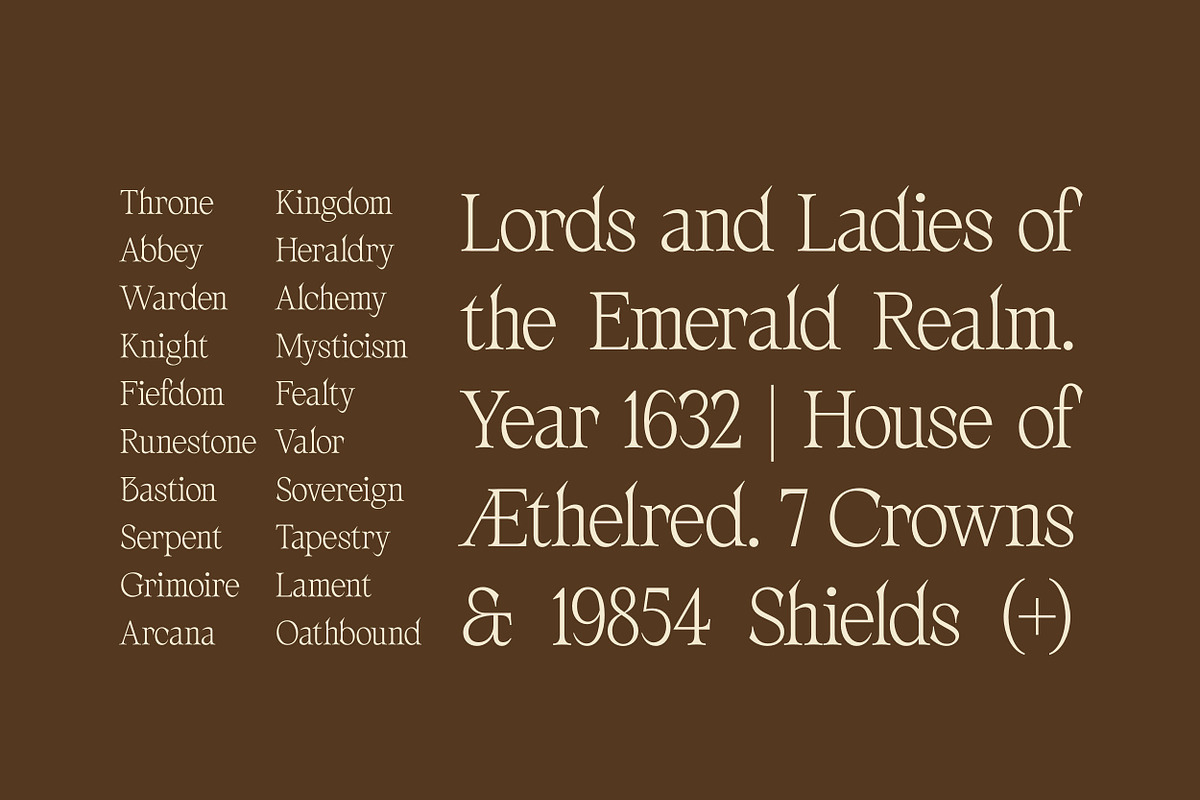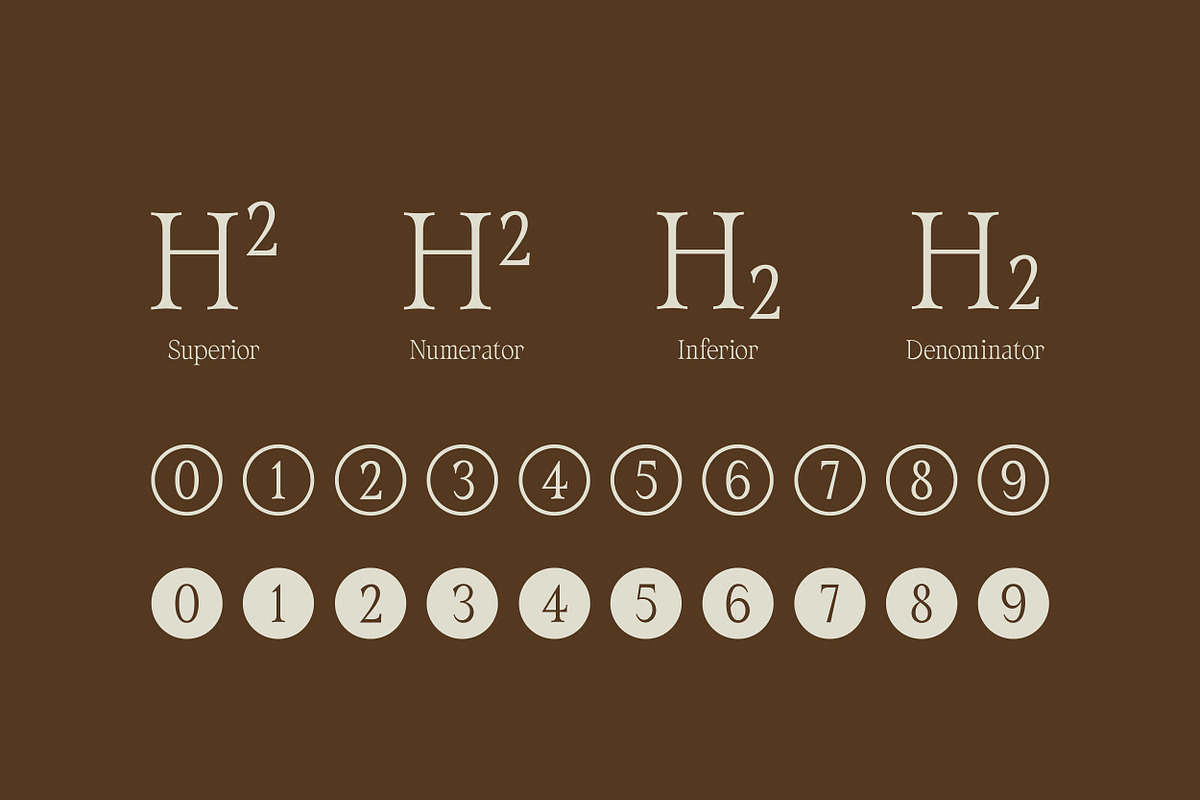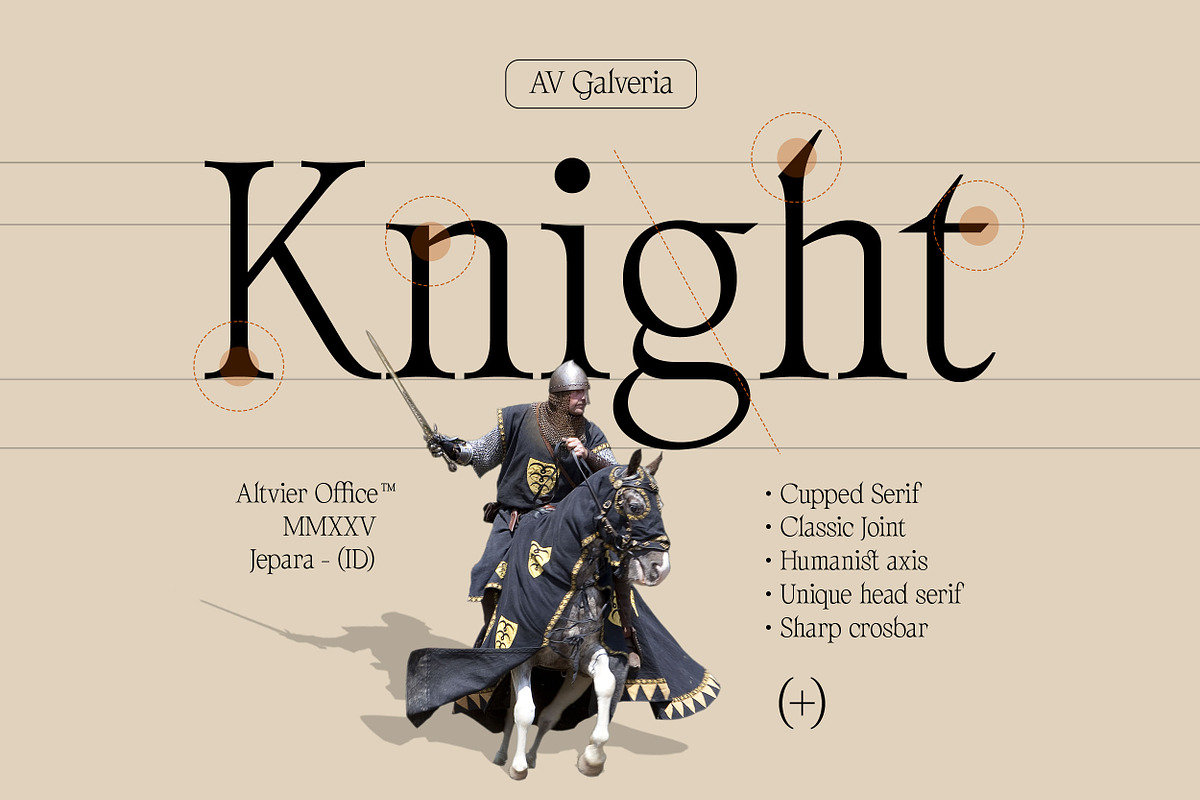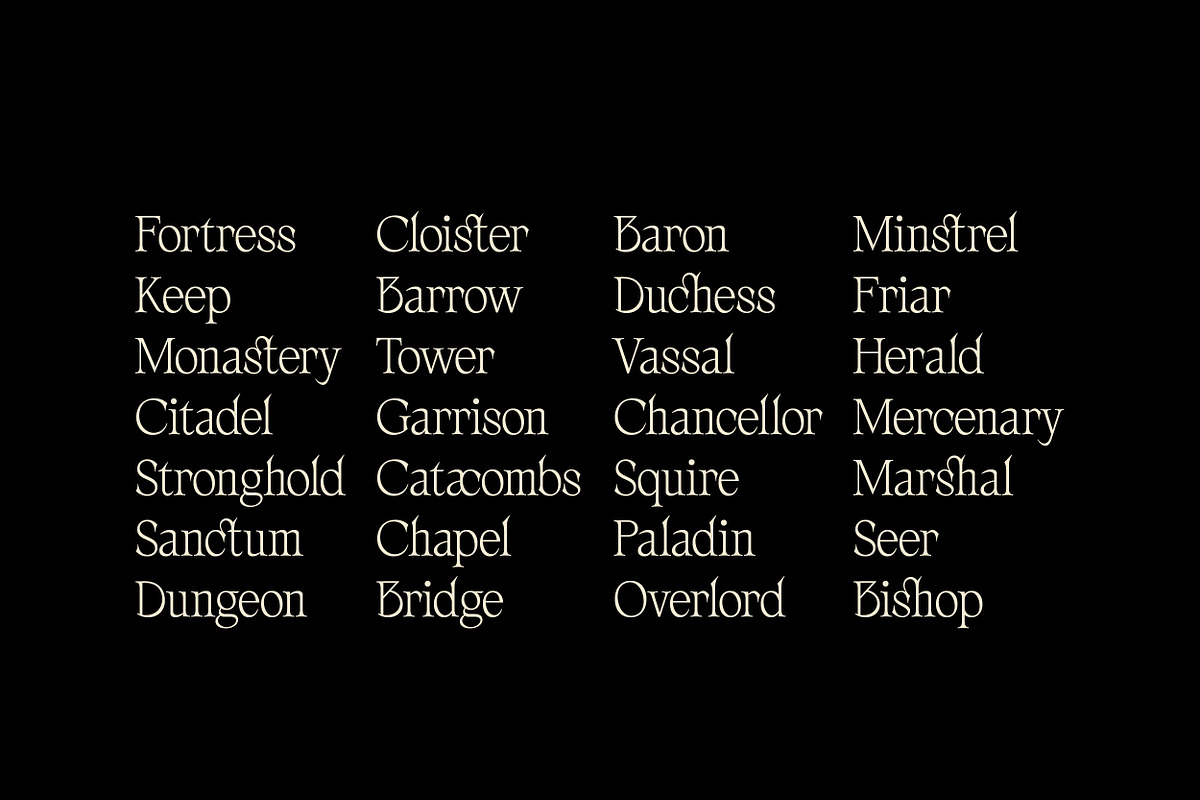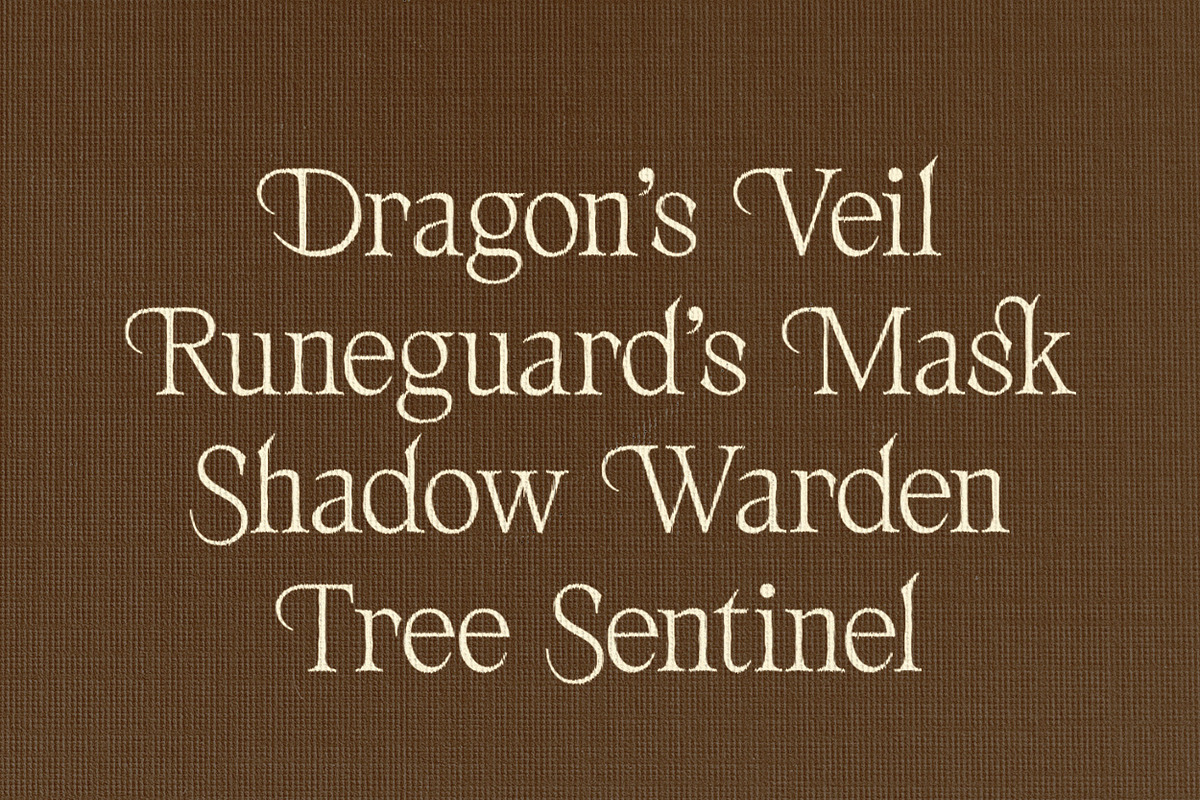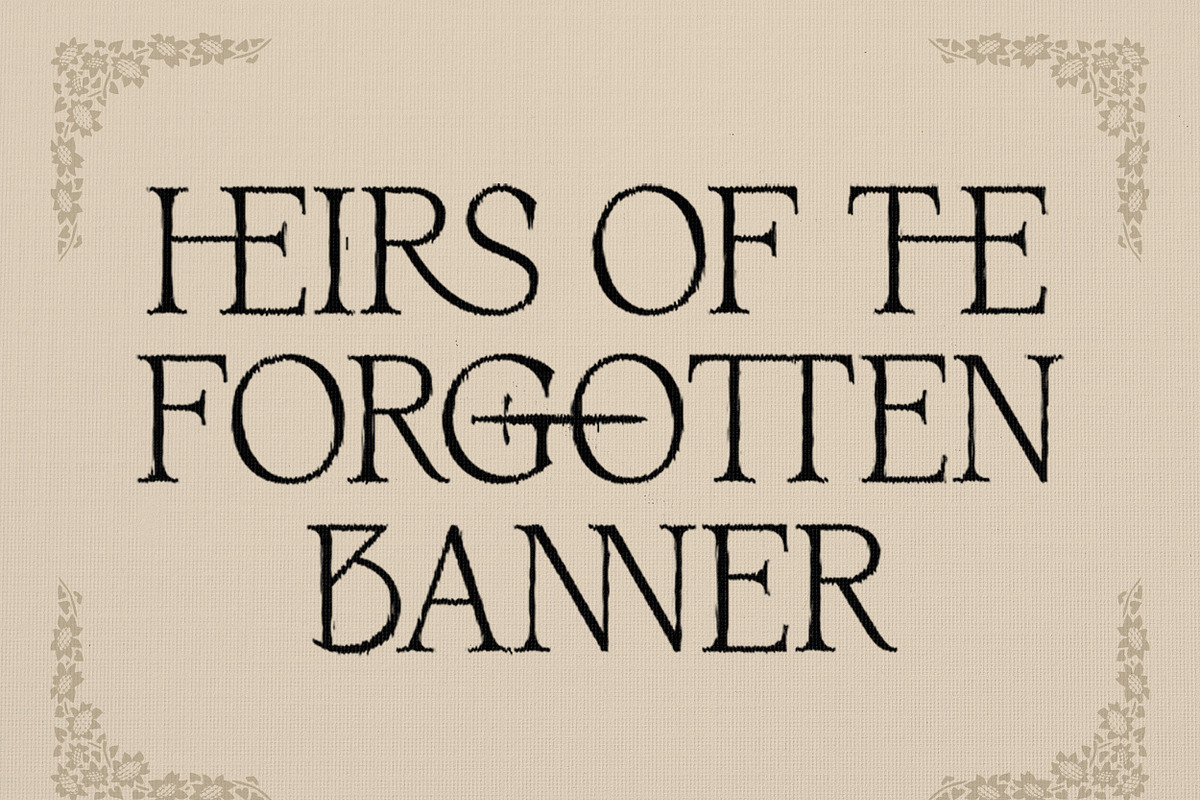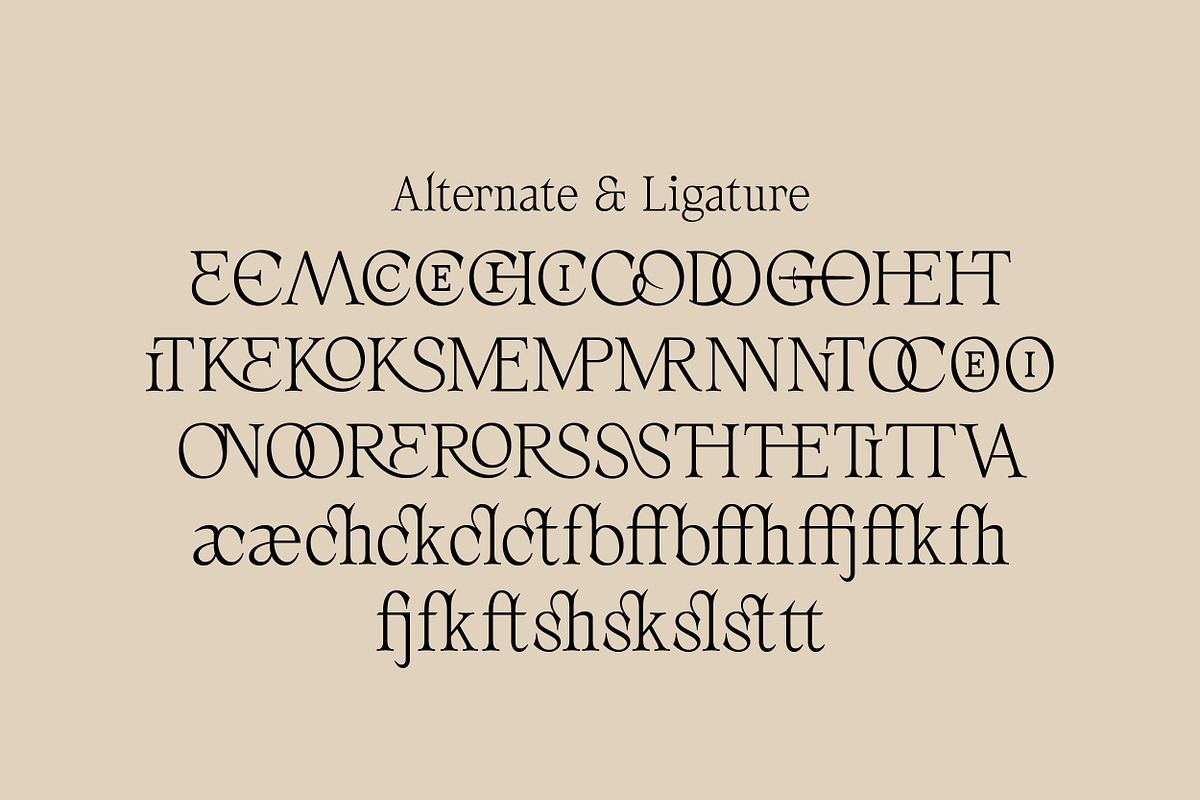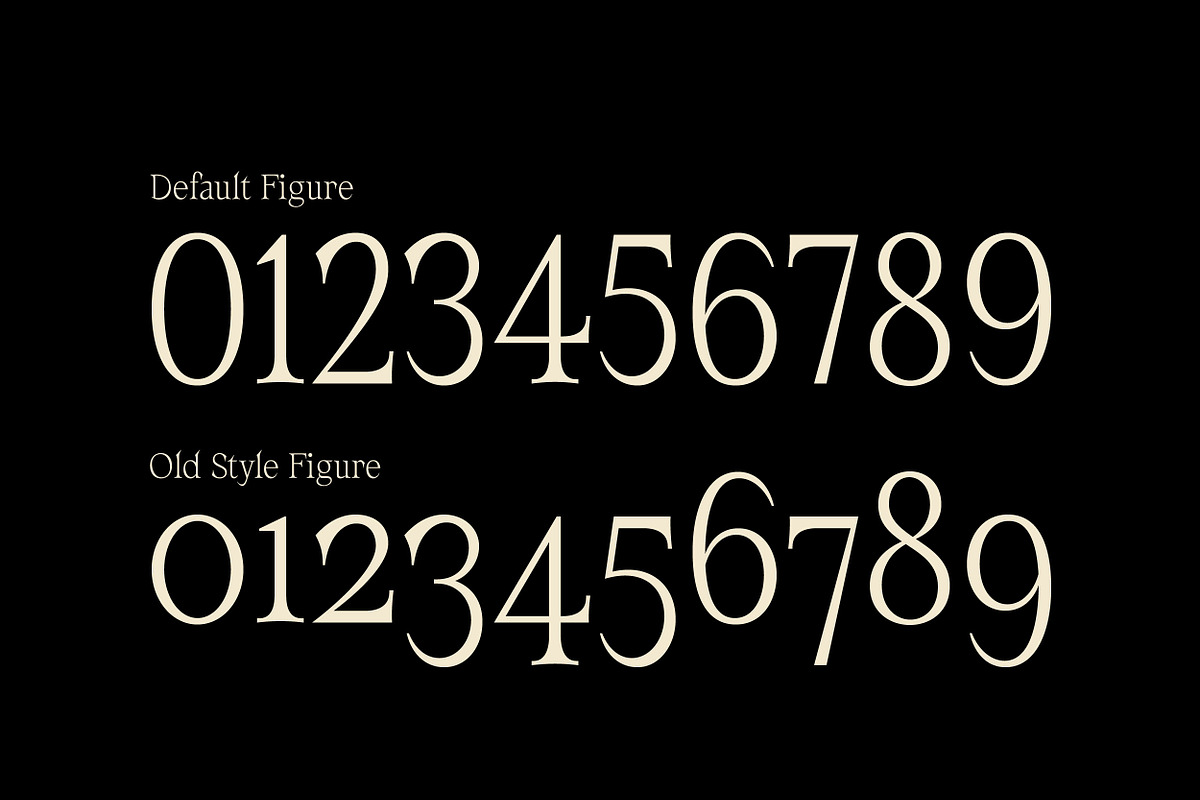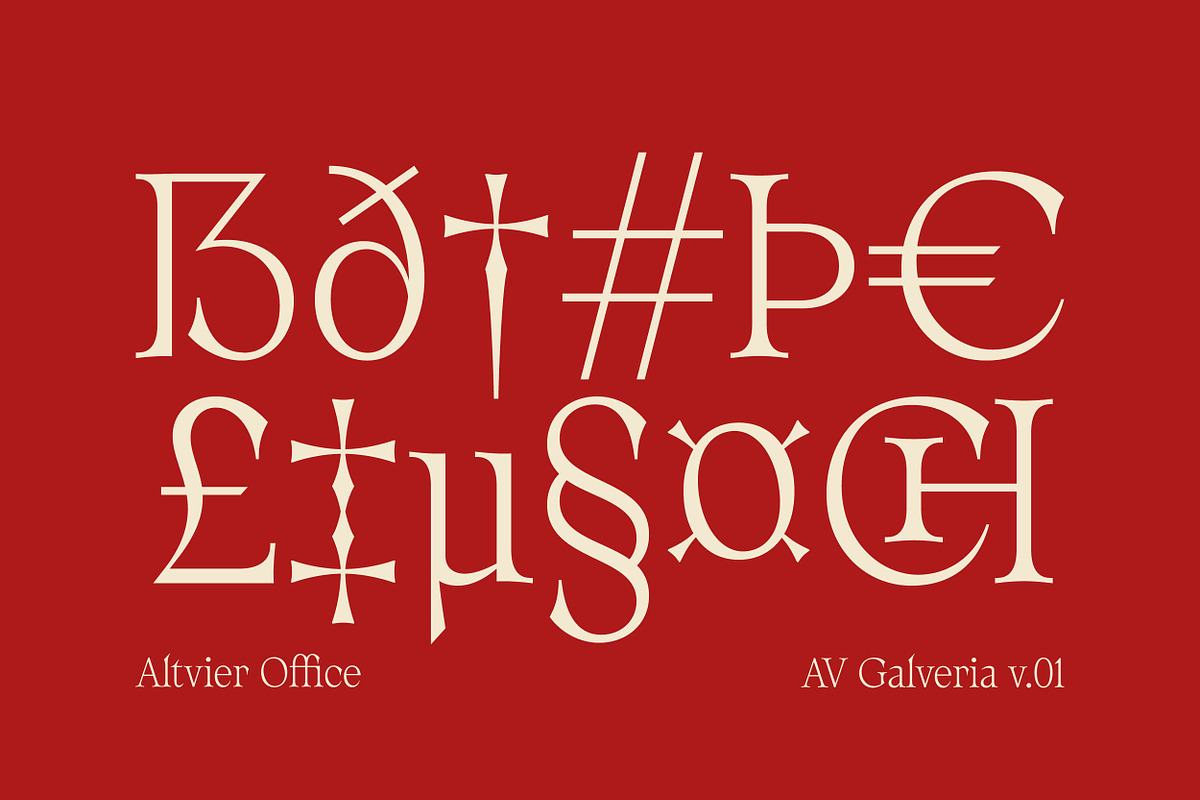
AV Galveria - Display Serif Font
A Font Forged in History Inspired by the elegance of the Chivalric era, designed for timeless creations. Galveria is a serif font steeped in Chivalric artistry. its graceful curves and beautiful serifs echo the manuscripts,banners, and inscriptions of a bygone age,perfect for designs that demand a touch of history and grandeur.